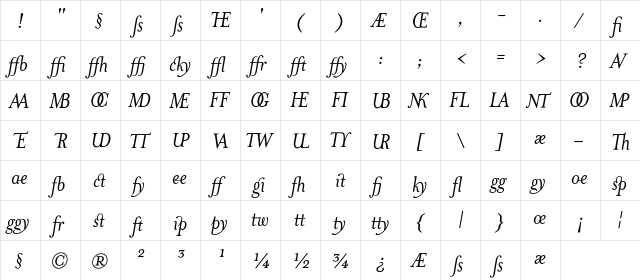
MrsEavesJustLig Italic
Design Context for MrsEavesJustLig Typeface
MrsEavesJustLig is a composed and adaptable typeface that performs quietly and consistently across a wide range of design contexts. Its italic angle brings a sense of urgency and motion to the letterforms.
Pro Tip: Use MrsEavesJustLig for emphasis, pull quotes, and subheadings where its slanted energy can add rhythm to the layout.